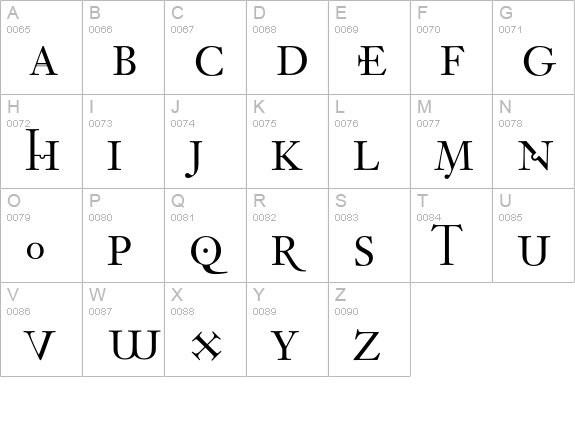
AFHadrian Font Details
Introducing AFHadrian, a modern and elegant font that exudes sophistication and charm. This versatile typeface is perfect for a wide range of design projects, from branding to packaging to social media graphics. With its clean lines and stylish curves, AFHadrian adds a touch of class to any project. What sets AFHadrian apart is not just its stunning design, but also the fact that it is completely free to download. Yes, you read that right - this beautiful font is available for free at FontsMarket.com. So whether you're a professional designer looking for a new addition to your font collection or a hobbyist seeking to elevate your creative projects, AFHadrian is the perfect choice. Don't miss out on the opportunity to enhance your designs with this exceptional font. Download AFHadrian today and let your creativity soar!